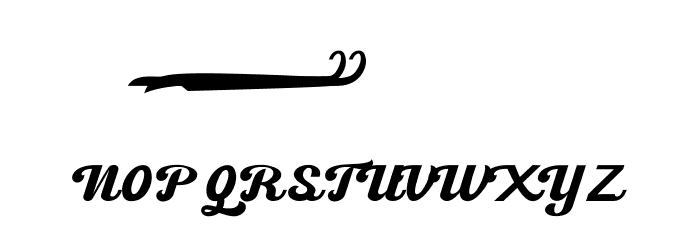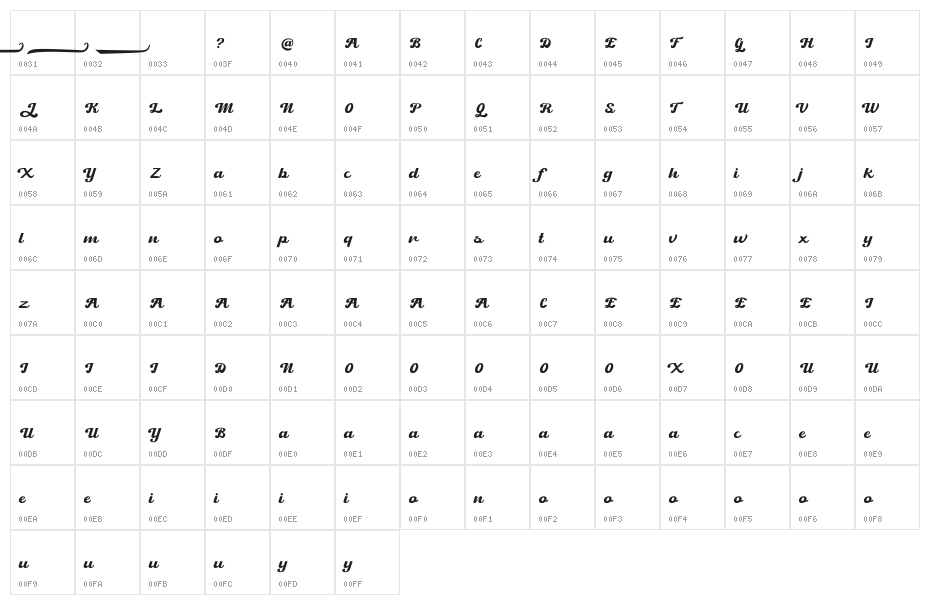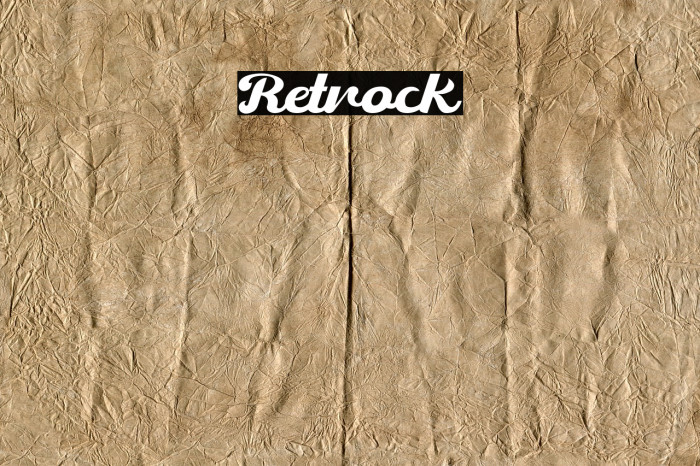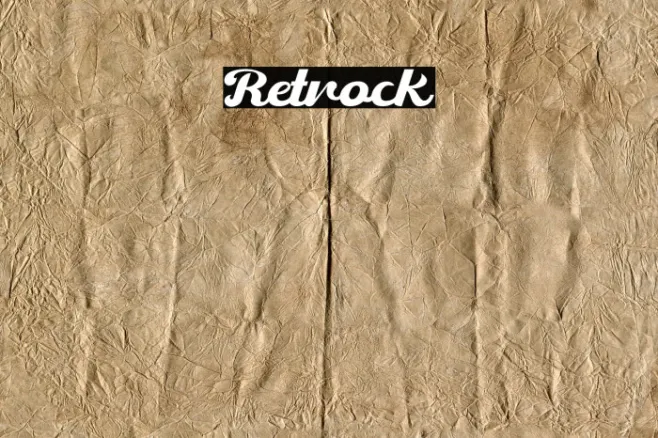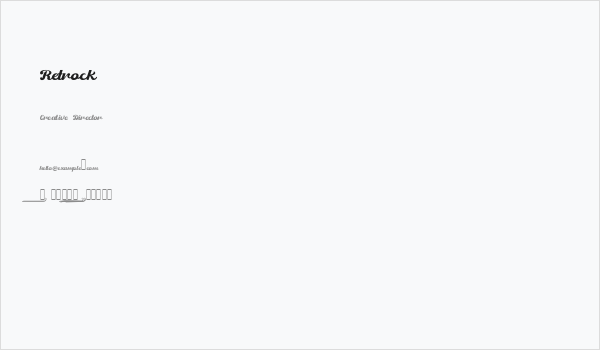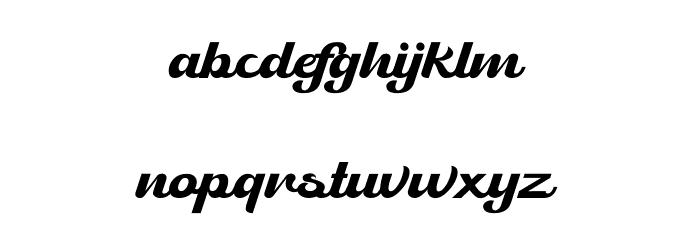
Retrock Font
Retrock Description
This font features a bold, flowing script style with a vintage flair. The uppercase letters are ornate and elegant, with sweeping curves and flourishes that give a sense of movement and grace. The lowercase letters maintain the same fluidity, offering a cohesive look across different text sizes. The numbers and special characters are designed to match the overall aesthetic, making them suitable for decorative purposes. This font is ideal for projects that require a touch of elegance and sophistication, such as invitations, branding, and signage.